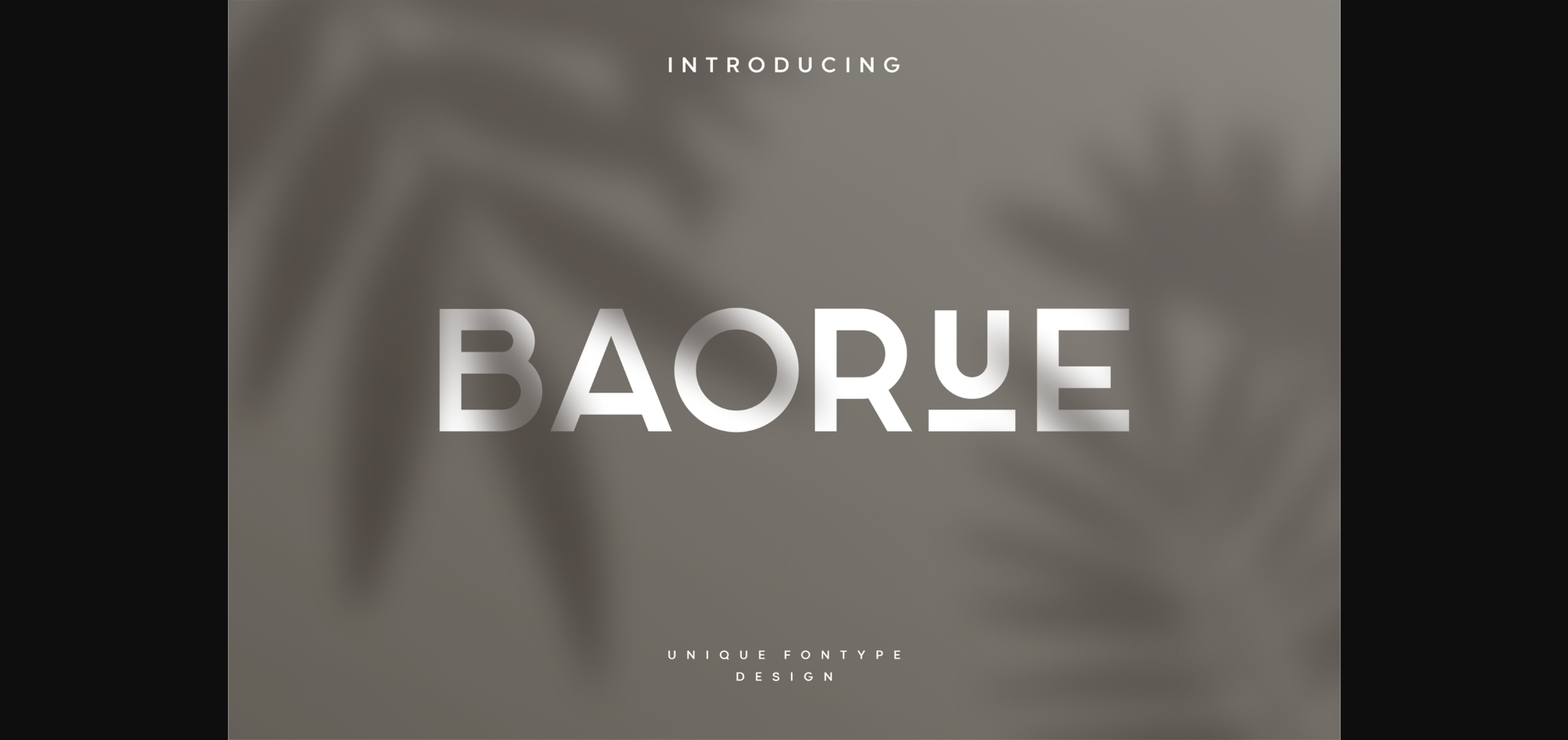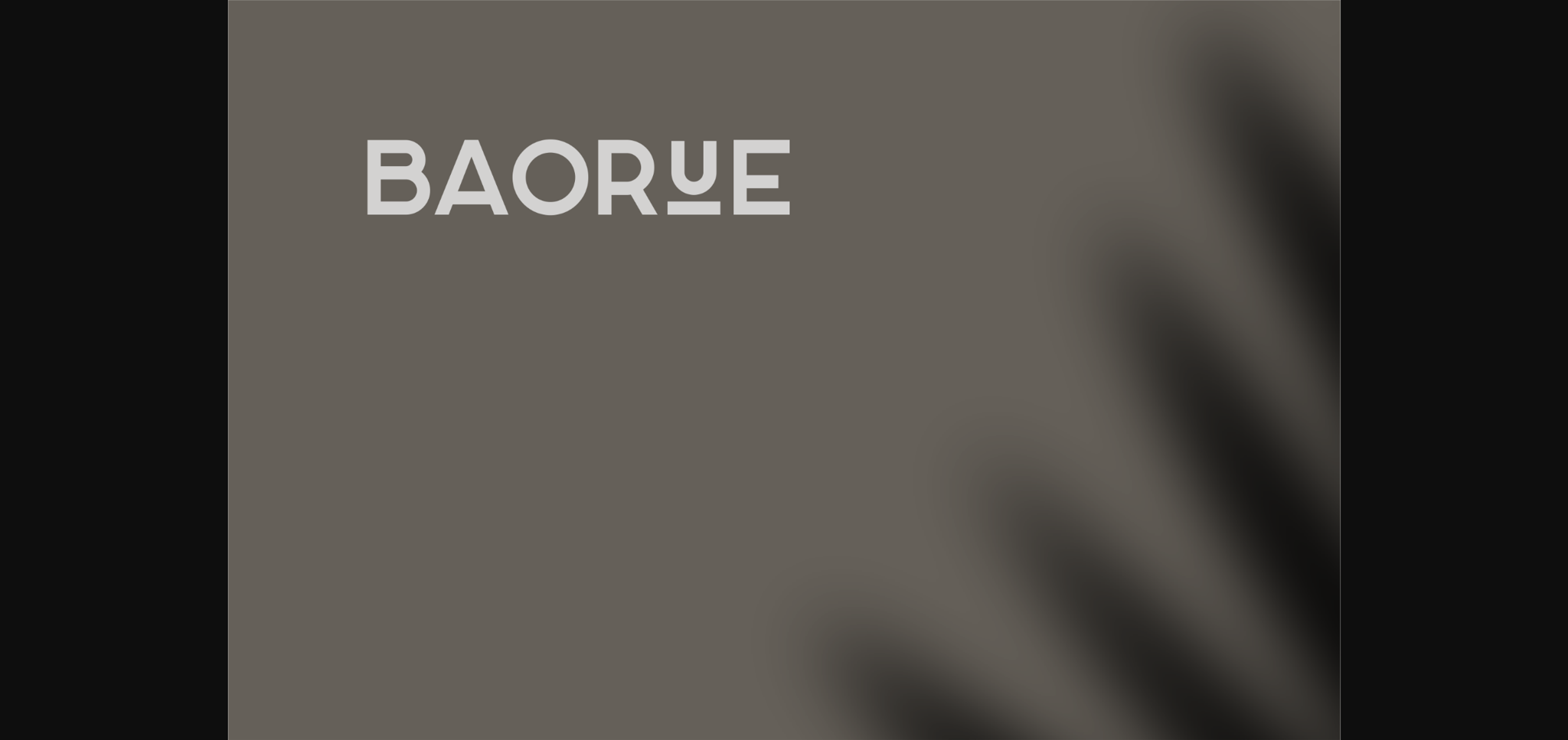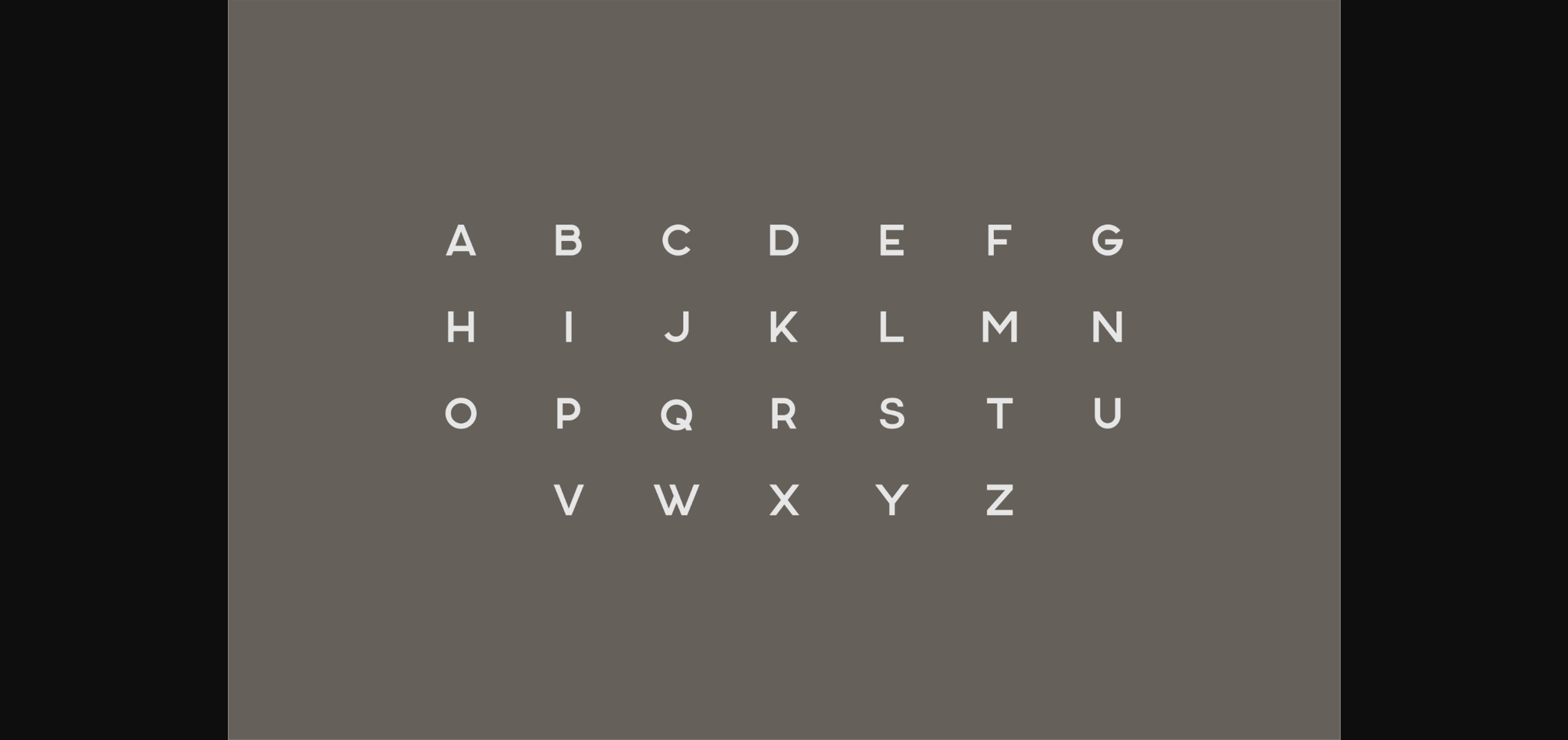
Baorue Font
About Baorue Font
Baorue is bold and neat sans serif font. It can easily be matched to an incredibly large set of projects, so add it to your creative ideas and notice how it makes them stand out!